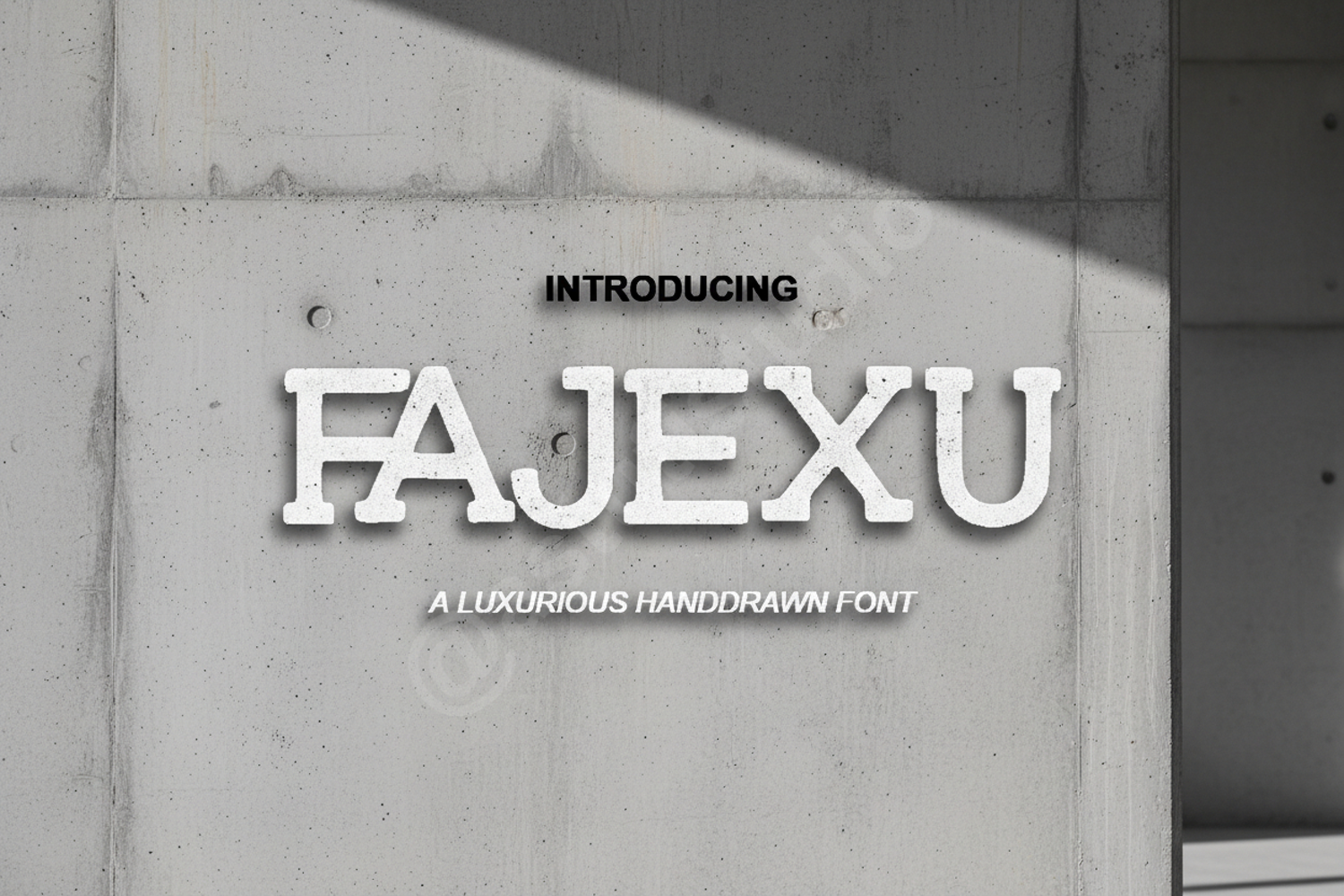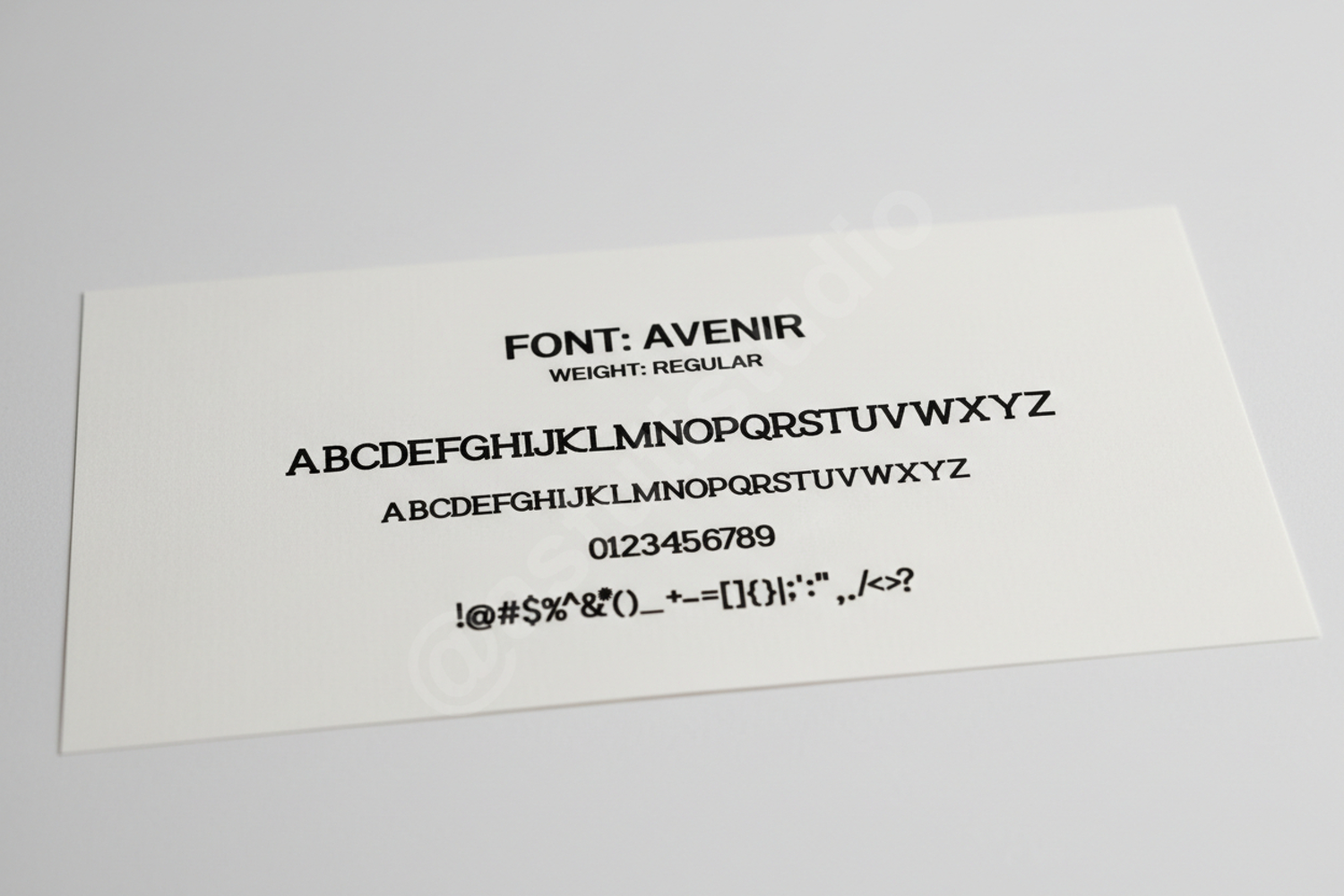
Fajexu - Modern Minimalist Sans Serif Font
Fajexu
Fajexu is a premium sans serif typeface that embodies modern sophistication and clean aesthetics. Designed with precision, this font offers a perfect balance between geometric structure and elegant readability, making it an essential tool for designers seeking a professional edge in their creative projects.
- Standard Ligatures and Alternates
- Luxury Branding and Identity Systems
- High-end Editorial and Magazine Layouts
- Modern Logo Design and Wordmarks
- Minimalist Website Headers and UI Elements
- Professional Business Cards and Stationery
- Premium Product Packaging and Labels